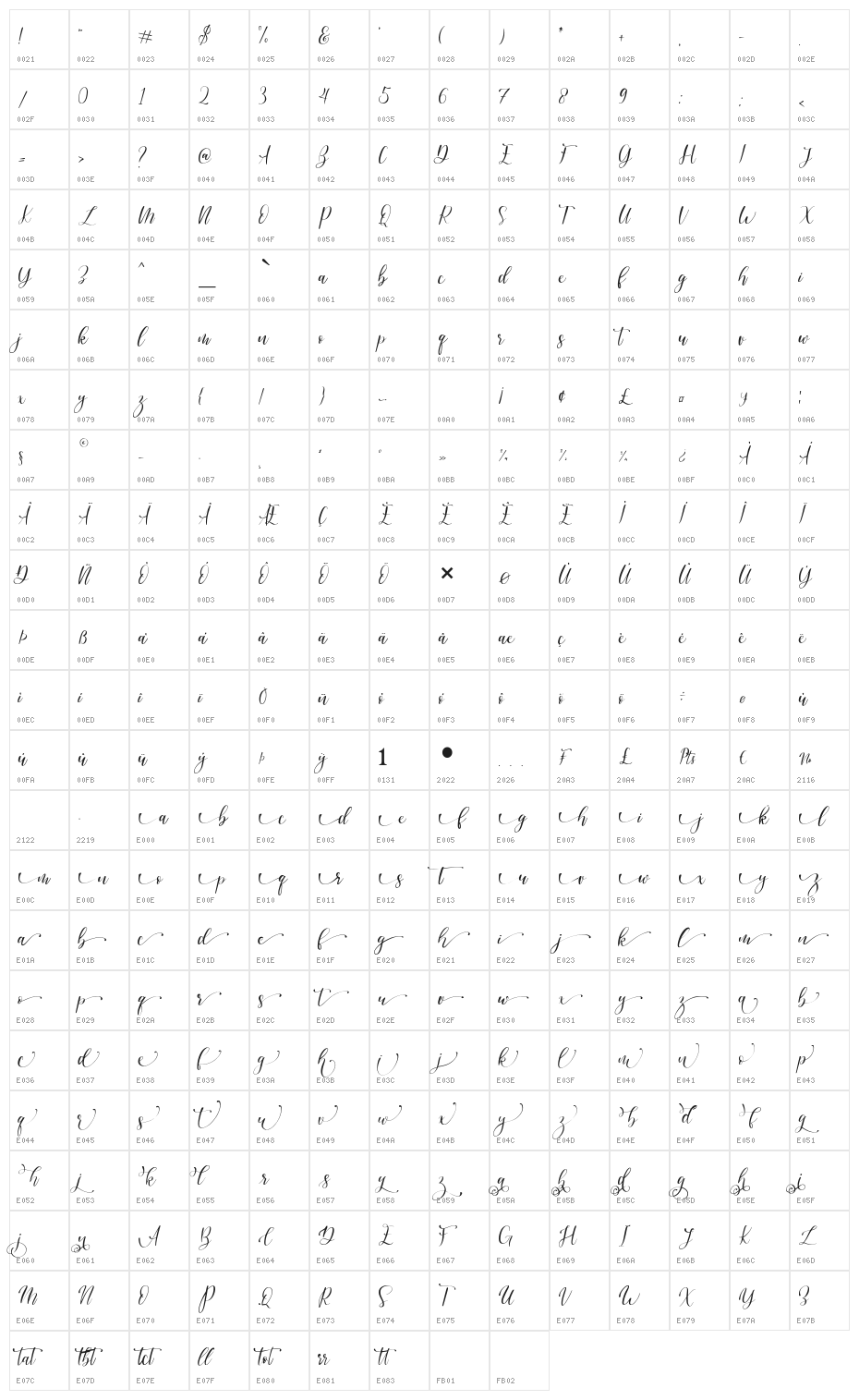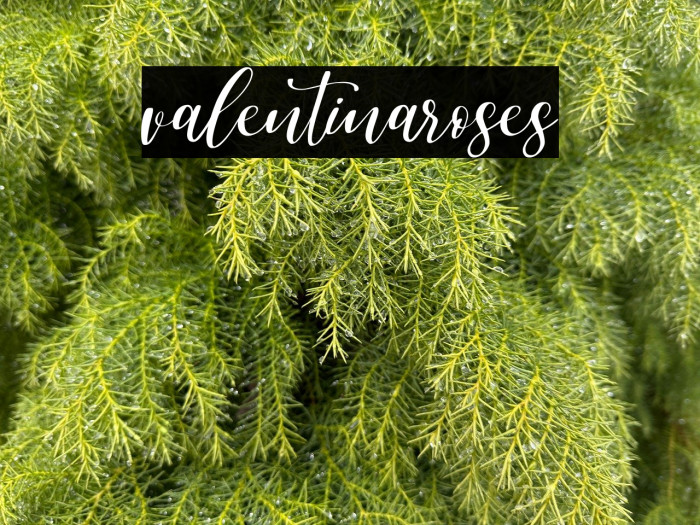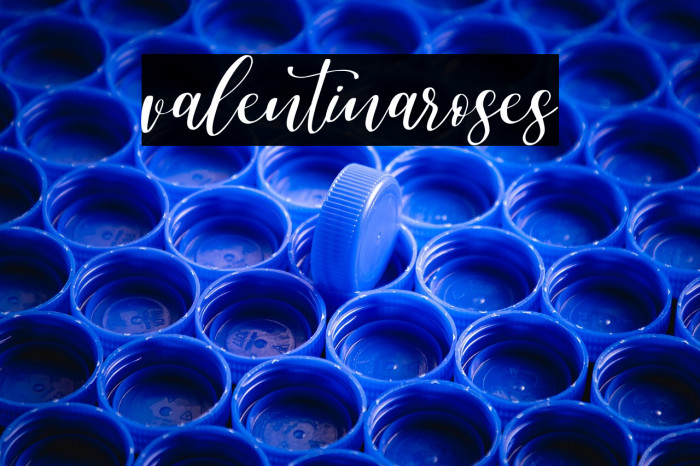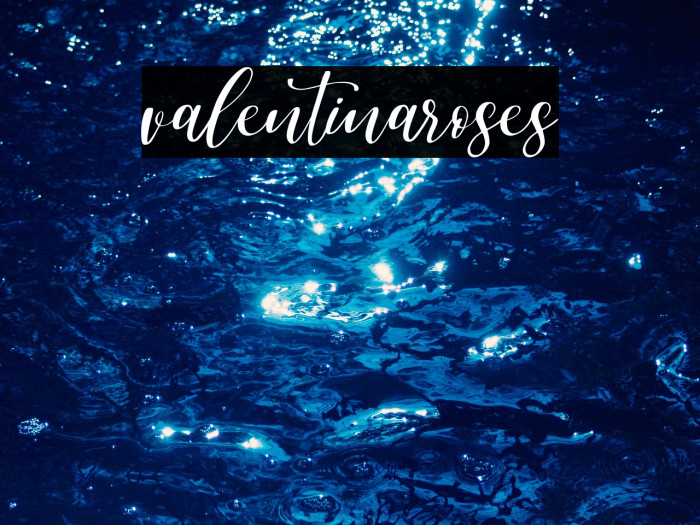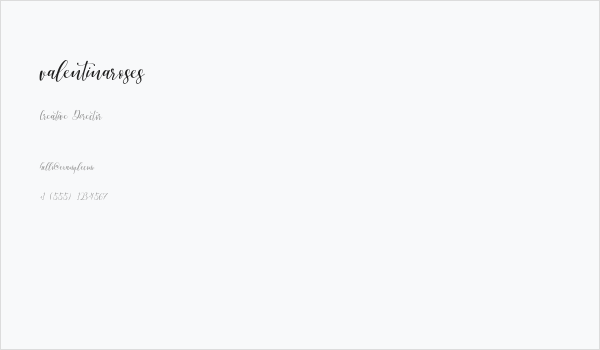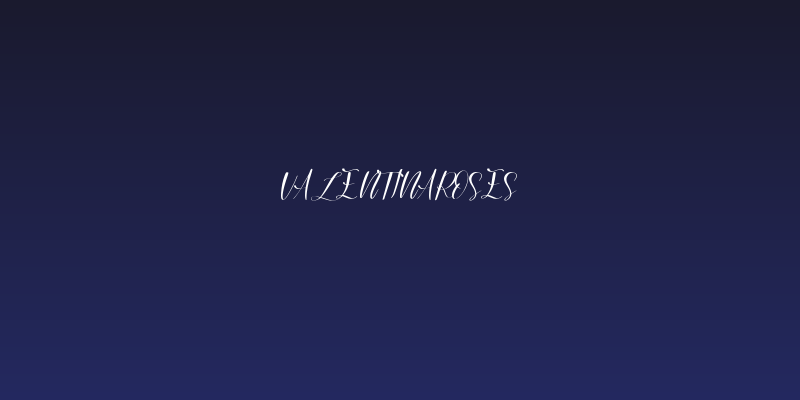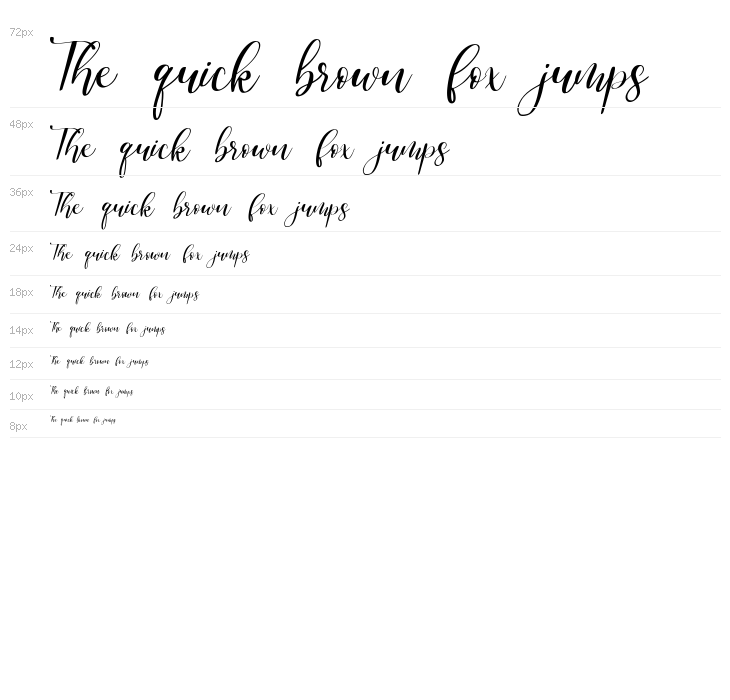
valentinaroses Font
valentinaroses Description
This elegant script font features flowing, interconnected letters with a calligraphic style. The uppercase letters are ornate, with dramatic flourishes and loops that give a sense of movement and grace. The lowercase letters maintain a consistent style, with smooth curves and a slightly slanted orientation, enhancing the handwritten feel. The numerals are distinct and maintain the same decorative style, ensuring readability while adding a touch of sophistication. Special characters are thoughtfully designed to match the overall aesthetic, making this font versatile for various creative applications.
Use CaseLogos, Invitations, Artistic projects
Proposed ProjectsIdeal for wedding invitations, elegant branding, personal stationery, and artistic projects requiring a touch of sophistication.